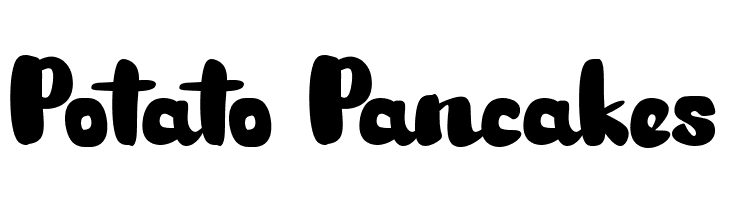
A playful, casual handwritten font with smooth curves and consistent height.
A playful, handwritten font with smooth, fluid strokes and a casual style.
A bold, playful font with rounded strokes and a hand-drawn feel.
A playful, bold handwritten font with smooth, rounded edges and a casual style.